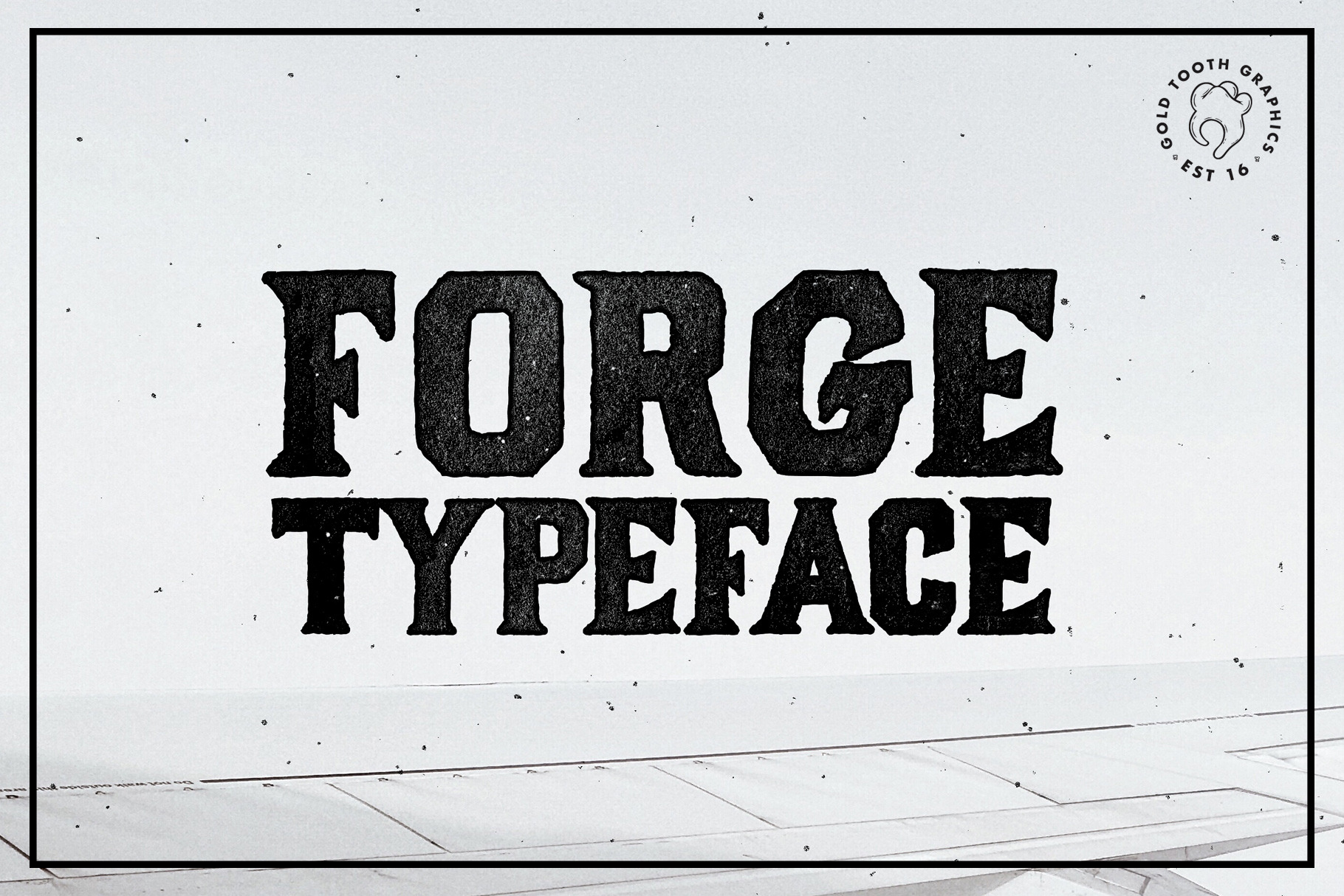
Forge Typeface
Forge is a unique and rough typeface that was crafted by hand. Its inspiration was to create a font with boldness & character. This font has a vintage & traditional American typography feel.
All characters have an imperfect shape and roughness that gives a natural hand-drawn feel. It is perfect for t-shirts, logos, packaging design, labels and much more.